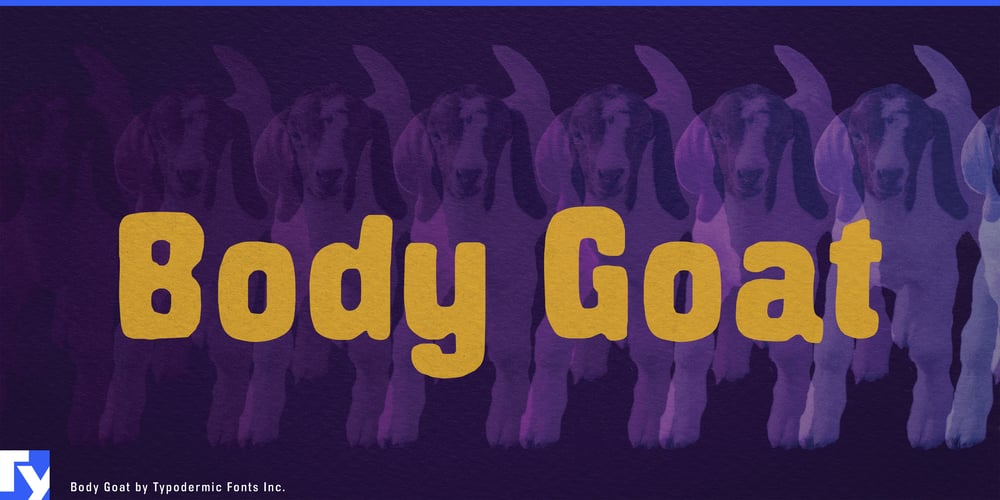
Body Goat
Body Goat font
Body Goat Font Family was designed by Ray Larabie and published by Typodermic. Body Goat contains 1 styles and family package options. Step into the surreal realm of Body Goat—a hand-painted display typeface that defies convention and ignites the imagination. This compact marvel of letterform artistry invites you to explore the boundaries where typography meets the extraordinary.At first glance, Body Goat’s inky essence may seem unassuming, but look closer. Each character pulsates with a hypnotic energy, drawing the eye into a world where letters are more than mere symbols—they’re portals to the fantastical. When infused with color, Body Goat undergoes a metamorphosis, transforming into a menagerie of playful yet powerful creatures that dance across the page. Don’t be fooled by its casual demeanor. Body Goat commands attention with the authority of a ringmaster in a typographic circus. It’s the perfect choice for headlines that don’t just speak—they roar, whisper, and everything in between. From avant-garde art galleries to underground zines, Body Goat finds its home wherever the conventional dares not tread.This linguistic shapeshifter speaks fluently across most Latin-based European writing systems. Whether you’re crafting a surrealist manifesto in Paris or designing a phantasmagorical festival poster in Prague, Body Goat ensures your message transcends the ordinary in any language. Choose Body Goat when you want your designs to break free from the constraints of reality. It’s more than a font—it’s a passport to a dimension where the rules of typography bend and flex at your whim. Let Body Goat be the paintbrush for your typographic dreams, ready to transform the mundane into the magical.Embrace the bizarre, celebrate the extraordinary, and let your creativity run wild with Body Goat. Because in a world of conventional type, sometimes you need a typeface that’s not afraid to be the black sheep—or in this case, the body goat.